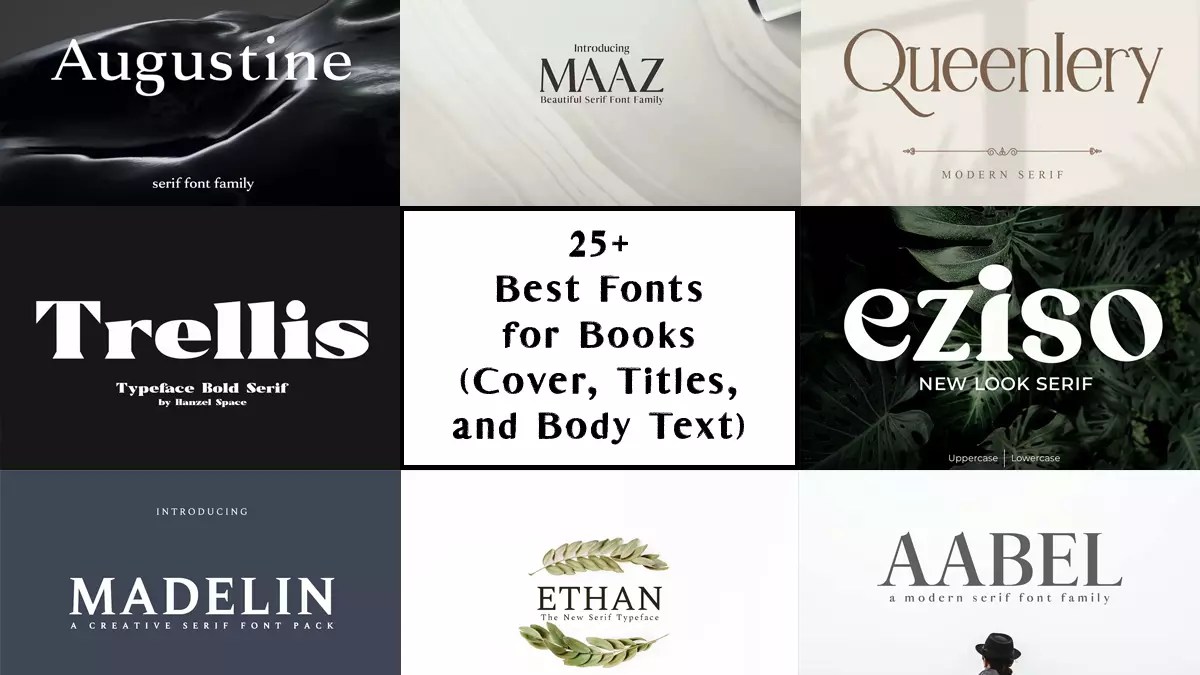
Good Fonts For Novels . So dive into my article as i. In fact, many corporate logos, most notably ebay, sport univers fonts. With all these ideas in mind, here are 12 fonts that make books much more readable and engaging. Before we dive into those industry standards and what to use as the main font for your book, let’s look at some examples of how you can be creative with book fonts used to add character to certain elements in your stories. At papertrue, we help you choose the best fonts and select the best font for books (depending on the genre and requirement). 12 best fonts for books. The best font for novels. We streamline requisite typesetting for your book, enhancing your book’s readability and visual appeal. The font is utilitarian and versatile with its evenness across the letters.
The font is utilitarian and versatile with its evenness across the letters. So dive into my article as i. In fact, many corporate logos, most notably ebay, sport univers fonts. We streamline requisite typesetting for your book, enhancing your book’s readability and visual appeal. The best font for novels. With all these ideas in mind, here are 12 fonts that make books much more readable and engaging. At papertrue, we help you choose the best fonts and select the best font for books (depending on the genre and requirement). Before we dive into those industry standards and what to use as the main font for your book, let’s look at some examples of how you can be creative with book fonts used to add character to certain elements in your stories. 12 best fonts for books.
Good Fonts For Novels At papertrue, we help you choose the best fonts and select the best font for books (depending on the genre and requirement). With all these ideas in mind, here are 12 fonts that make books much more readable and engaging. We streamline requisite typesetting for your book, enhancing your book’s readability and visual appeal. In fact, many corporate logos, most notably ebay, sport univers fonts. Before we dive into those industry standards and what to use as the main font for your book, let’s look at some examples of how you can be creative with book fonts used to add character to certain elements in your stories. 12 best fonts for books. The best font for novels. So dive into my article as i. At papertrue, we help you choose the best fonts and select the best font for books (depending on the genre and requirement). The font is utilitarian and versatile with its evenness across the letters.
10+ Best Fonts for Book Covers in 2021 Free and Premium Fonts Good Fonts For Novels 12 best fonts for books. At papertrue, we help you choose the best fonts and select the best font for books (depending on the genre and requirement). We streamline requisite typesetting for your book, enhancing your book’s readability and visual appeal. With all these ideas in mind, here are 12 fonts that make books much more readable and engaging. The. Good Fonts For Novels.
300+ FoolProof Fonts to use for your Book Cover Design (an epic list of best fonts per genre Good Fonts For Novels The font is utilitarian and versatile with its evenness across the letters. With all these ideas in mind, here are 12 fonts that make books much more readable and engaging. At papertrue, we help you choose the best fonts and select the best font for books (depending on the genre and requirement). Before we dive into those industry standards and. Good Fonts For Novels.
15+ Best Fonts for Books Free and Premium Fonts—MasterBundles Good Fonts For Novels We streamline requisite typesetting for your book, enhancing your book’s readability and visual appeal. At papertrue, we help you choose the best fonts and select the best font for books (depending on the genre and requirement). The font is utilitarian and versatile with its evenness across the letters. So dive into my article as i. The best font for novels.. Good Fonts For Novels.
10 Brilliant Fonts for Your Book Layout Good Fonts For Novels Before we dive into those industry standards and what to use as the main font for your book, let’s look at some examples of how you can be creative with book fonts used to add character to certain elements in your stories. So dive into my article as i. With all these ideas in mind, here are 12 fonts that. Good Fonts For Novels.
20 Best Book Fonts for Covers, Titles & More 2021 Theme Junkie Good Fonts For Novels Before we dive into those industry standards and what to use as the main font for your book, let’s look at some examples of how you can be creative with book fonts used to add character to certain elements in your stories. At papertrue, we help you choose the best fonts and select the best font for books (depending on. Good Fonts For Novels.
15+ Best Fonts for Books Free and Premium Fonts—MasterBundles Good Fonts For Novels In fact, many corporate logos, most notably ebay, sport univers fonts. The best font for novels. 12 best fonts for books. We streamline requisite typesetting for your book, enhancing your book’s readability and visual appeal. So dive into my article as i. Before we dive into those industry standards and what to use as the main font for your book,. Good Fonts For Novels.
20 Best Book Fonts for Covers, Titles & More 2021 Theme Junkie Good Fonts For Novels Before we dive into those industry standards and what to use as the main font for your book, let’s look at some examples of how you can be creative with book fonts used to add character to certain elements in your stories. In fact, many corporate logos, most notably ebay, sport univers fonts. With all these ideas in mind, here. Good Fonts For Novels.
The Best Book Fonts for All Time 10 Excellent Fonts for Typesetting Good Fonts For Novels The best font for novels. In fact, many corporate logos, most notably ebay, sport univers fonts. Before we dive into those industry standards and what to use as the main font for your book, let’s look at some examples of how you can be creative with book fonts used to add character to certain elements in your stories. At papertrue,. Good Fonts For Novels.
The Best Book Fonts for All Time 10 Excellent Fonts for Typesetting Good Fonts For Novels 12 best fonts for books. We streamline requisite typesetting for your book, enhancing your book’s readability and visual appeal. So dive into my article as i. The font is utilitarian and versatile with its evenness across the letters. With all these ideas in mind, here are 12 fonts that make books much more readable and engaging. At papertrue, we help. Good Fonts For Novels.